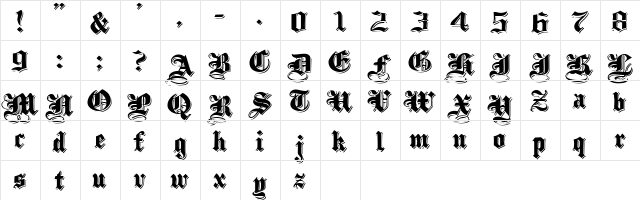
ShadowedBlackWide Normal
Design Context for ShadowedBlackWide Typeface
ShadowedBlackWide is built around its visual character rather than neutral utility — its distinctive forms are designed to make an impression at display sizes.
Font Pairing: Pair with a clean neutral sans-serif for body copy to let ShadowedBlackWide's character lead without overwhelming the composition.
Pro Tip: Use ShadowedBlackWide exclusively at display sizes — it was designed to be seen, not read at length. Let a neutral companion handle body copy.